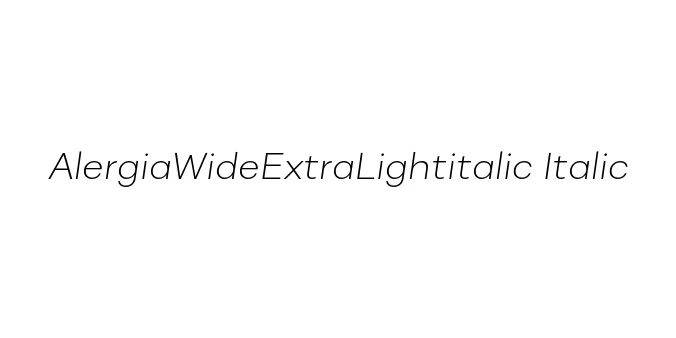
AlergiaWideExtraLightitalic Italic
Designed by Mateusz Machalski
Alergia Wide Extra Light Italic is a sophisticated member of the expansive Alergia superfamily, designed by the renowned Polish typographer Mateusz Machalski. This typeface is characterized by its unique hybrid nature, blending elements of geometric sans-serifs with subtle humanist touches. The Extra Light weight in the Wide width provides a spacious, airy feel that is both contemporary and elegant, while the italic slant adds a sense of motion and dynamic rhythm to the text.
Released through the Borutta Group, Alergia was built to be a versatile tool for modern designers. The Wide variants are specifically engineered to command attention in display settings, offering high legibility and a distinct personality. Its delicate strokes and extended proportions make it particularly suitable for high-end fashion branding, architectural layouts, and luxury editorial projects where whitespace and breathability are essential components of the visual identity.
AlergiaWideExtraLightitalic Italic Best Uses
Excellent for high-end magazine headers and sophisticated pull-quotes.
Perfect for luxury brands and tech startups seeking a clean, expansive identity.
Ideal for hero sections where a sense of openness and modernism is required.
Great for minimalist print ads and promotional graphics that need a refined touch.